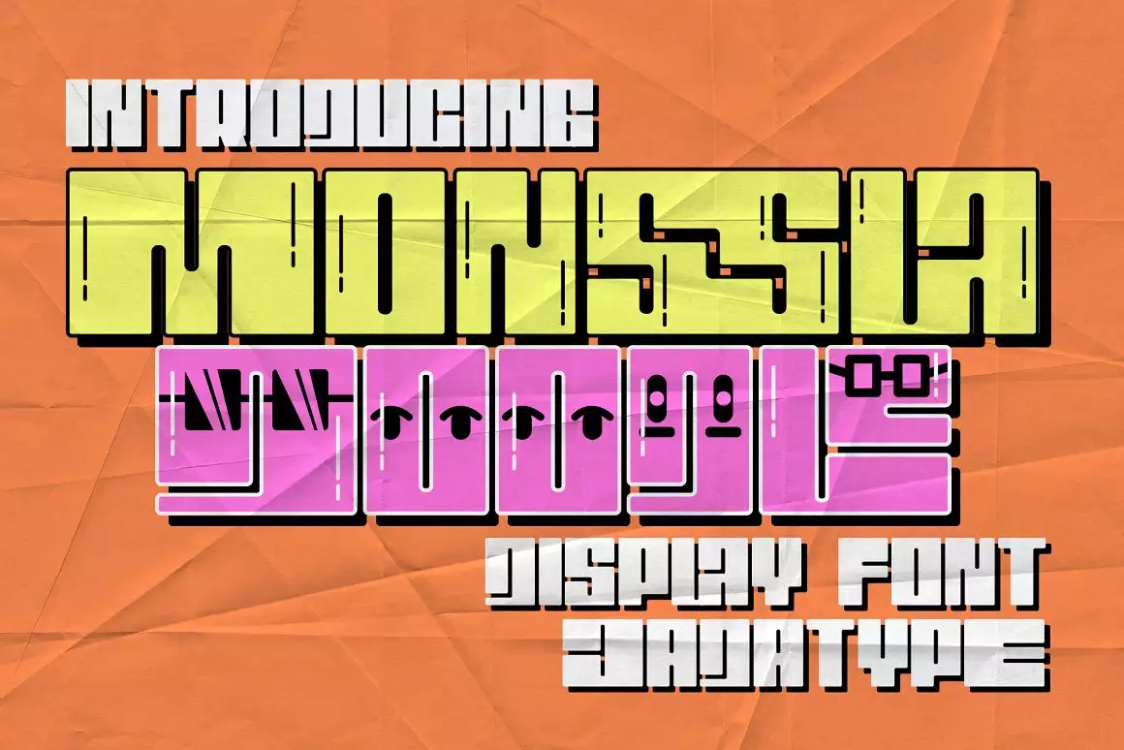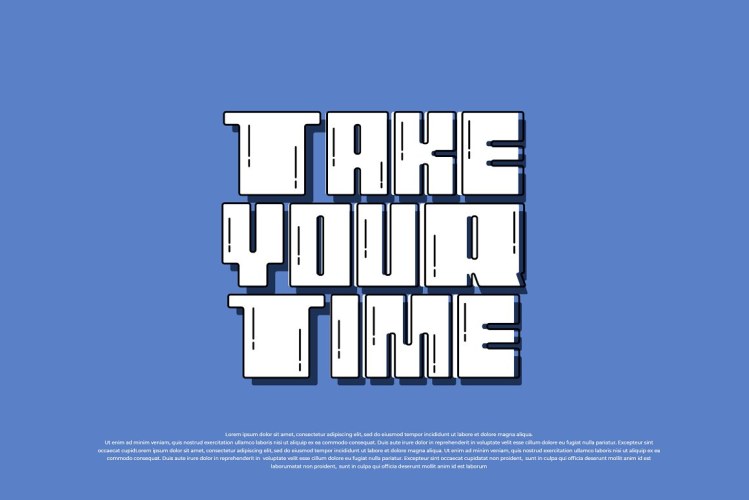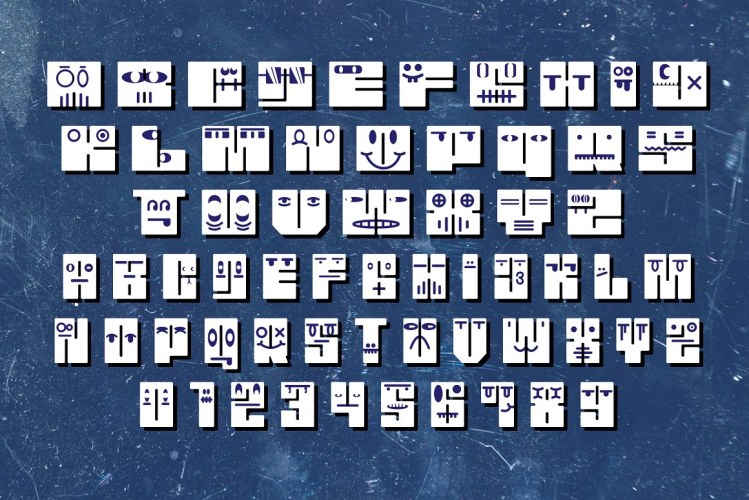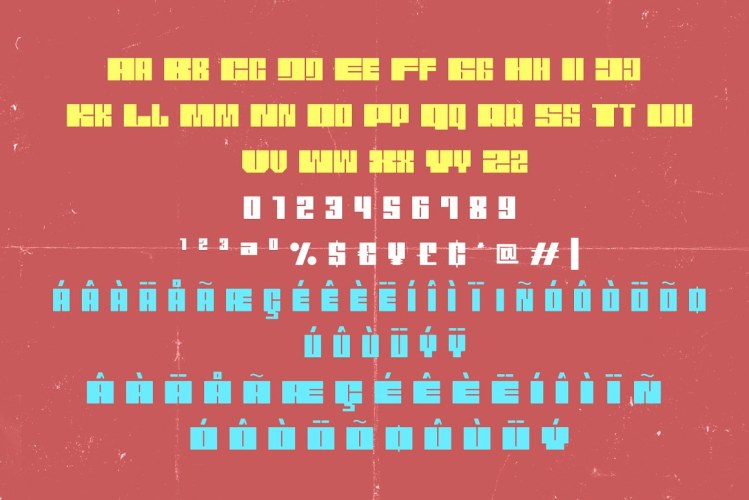
Monssla Display Font
Monssla is a display font that comes with a block bold style. suitable for posters, tshirt, branding, social media, and so on. contains standard English letters, numbers, punctuation, and several accents that support multilingualism.
Monssla Display Font is a Display Fonts font that brings a professional and versatile look to your projects. Monssla is a display font that comes with a block bold style.